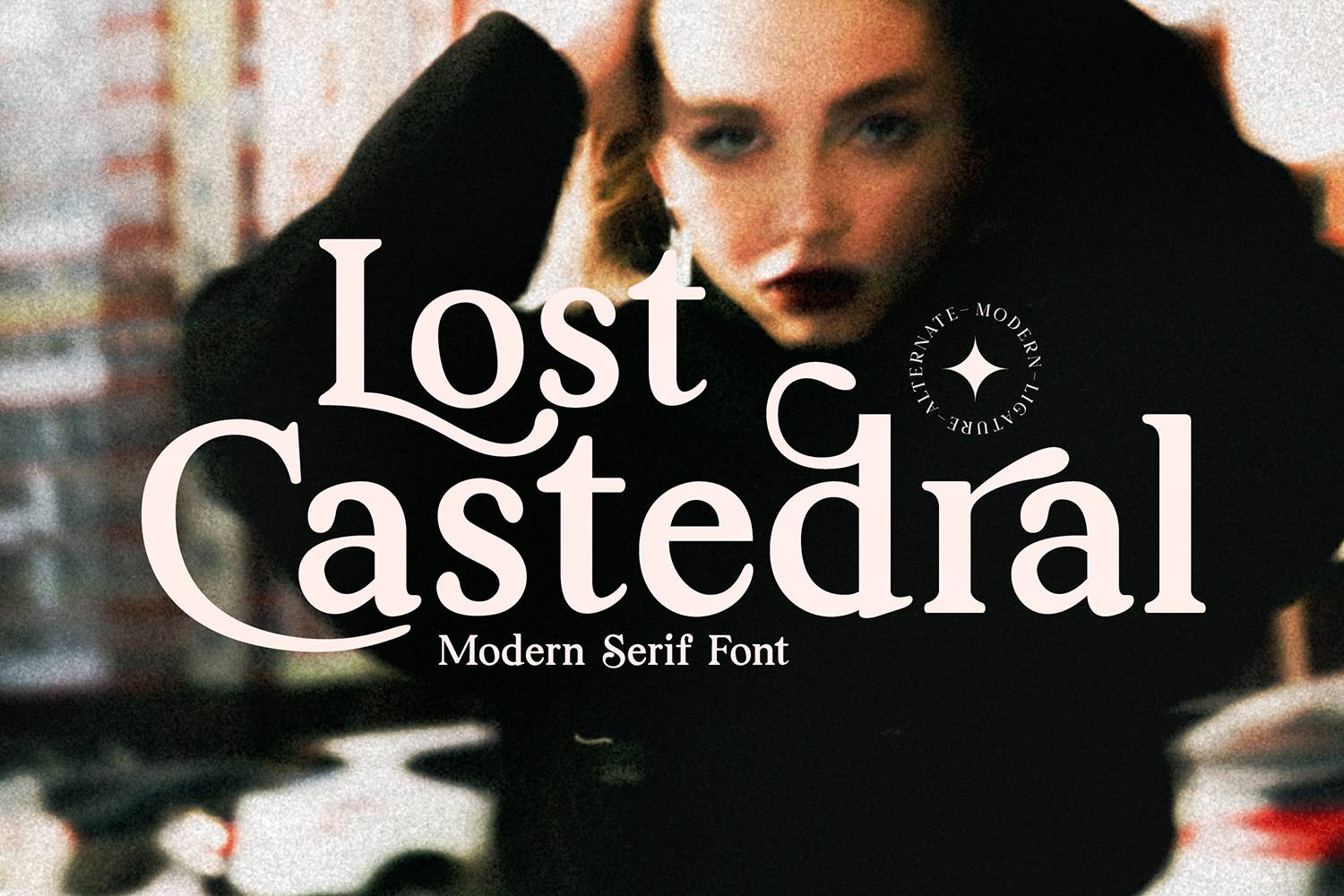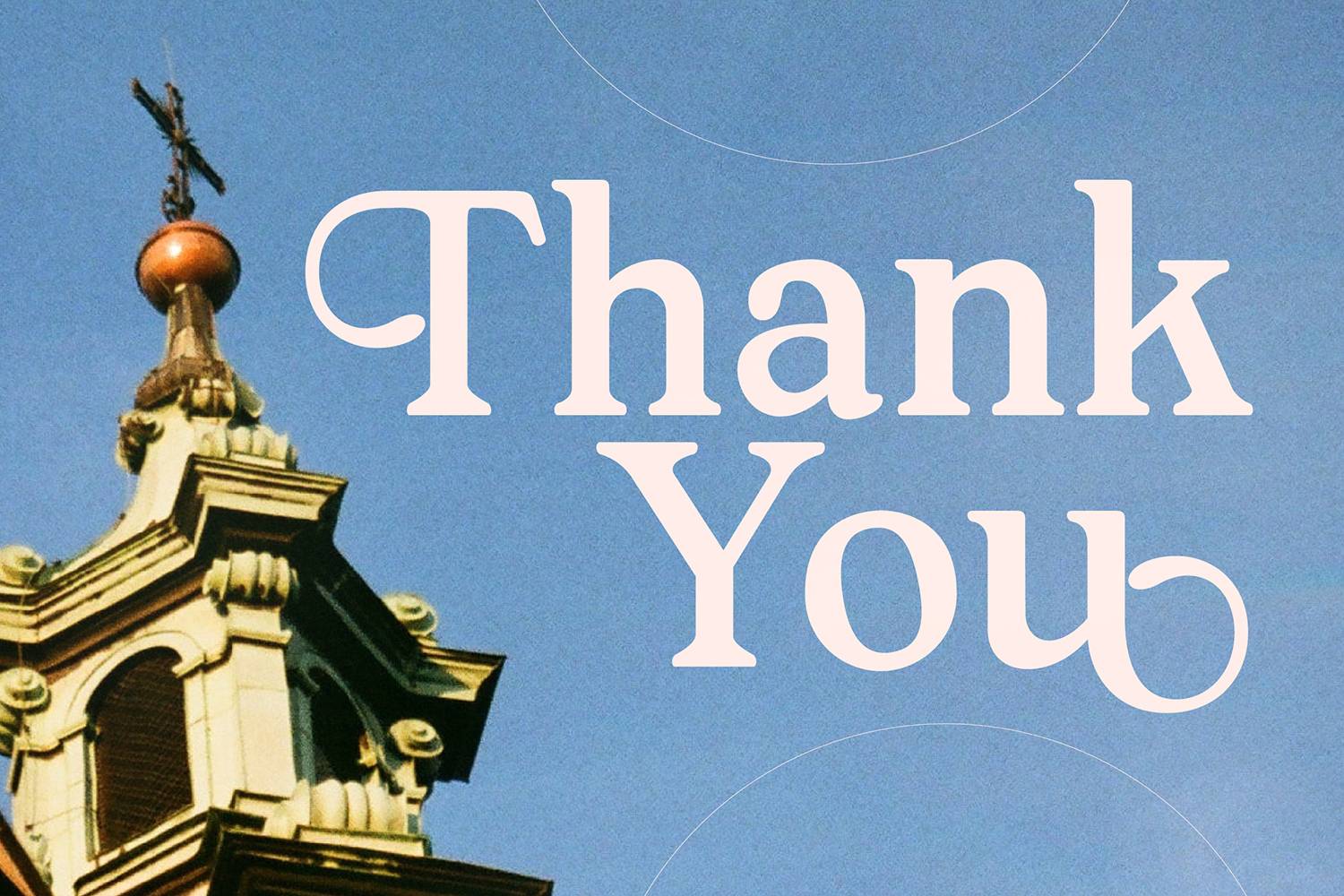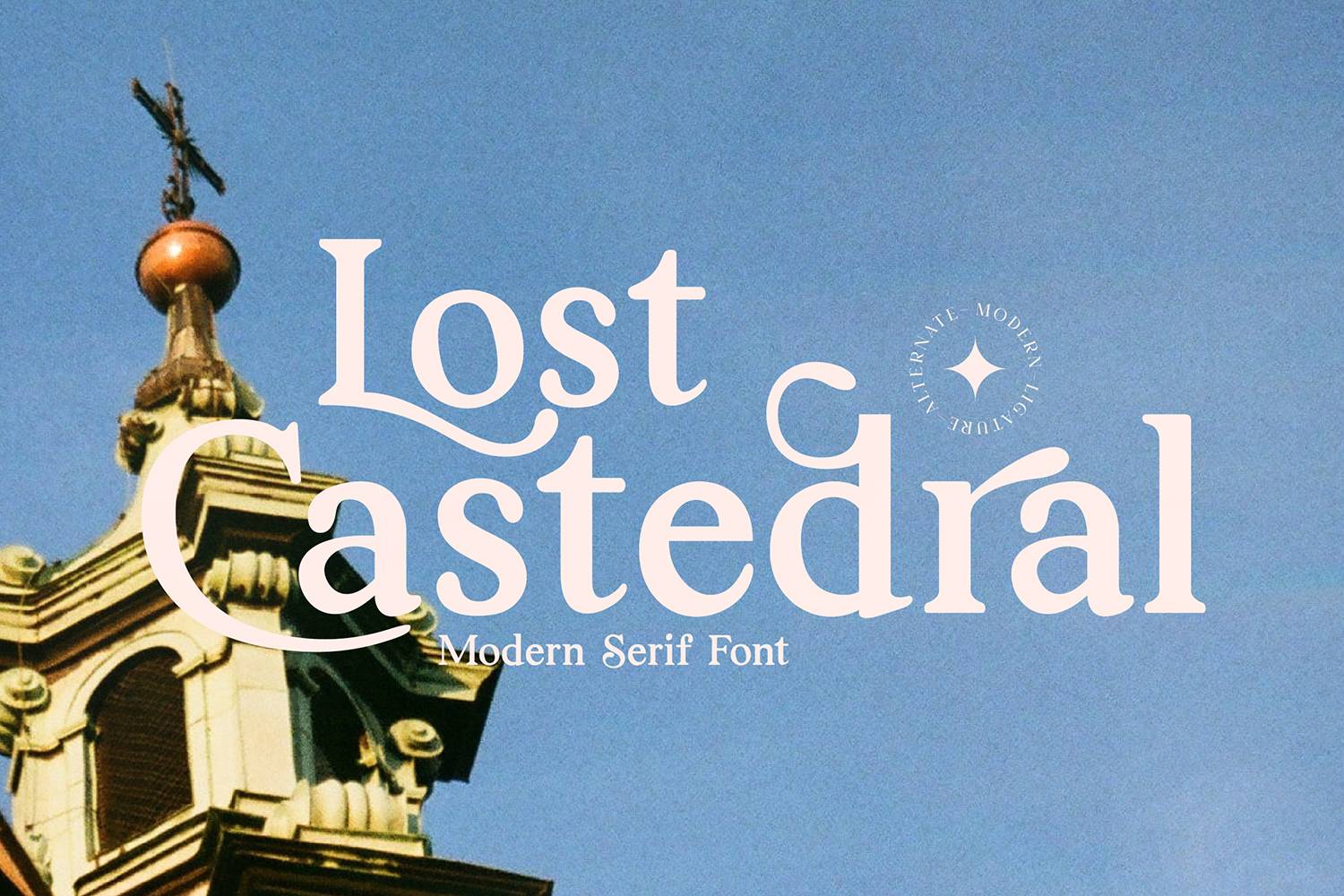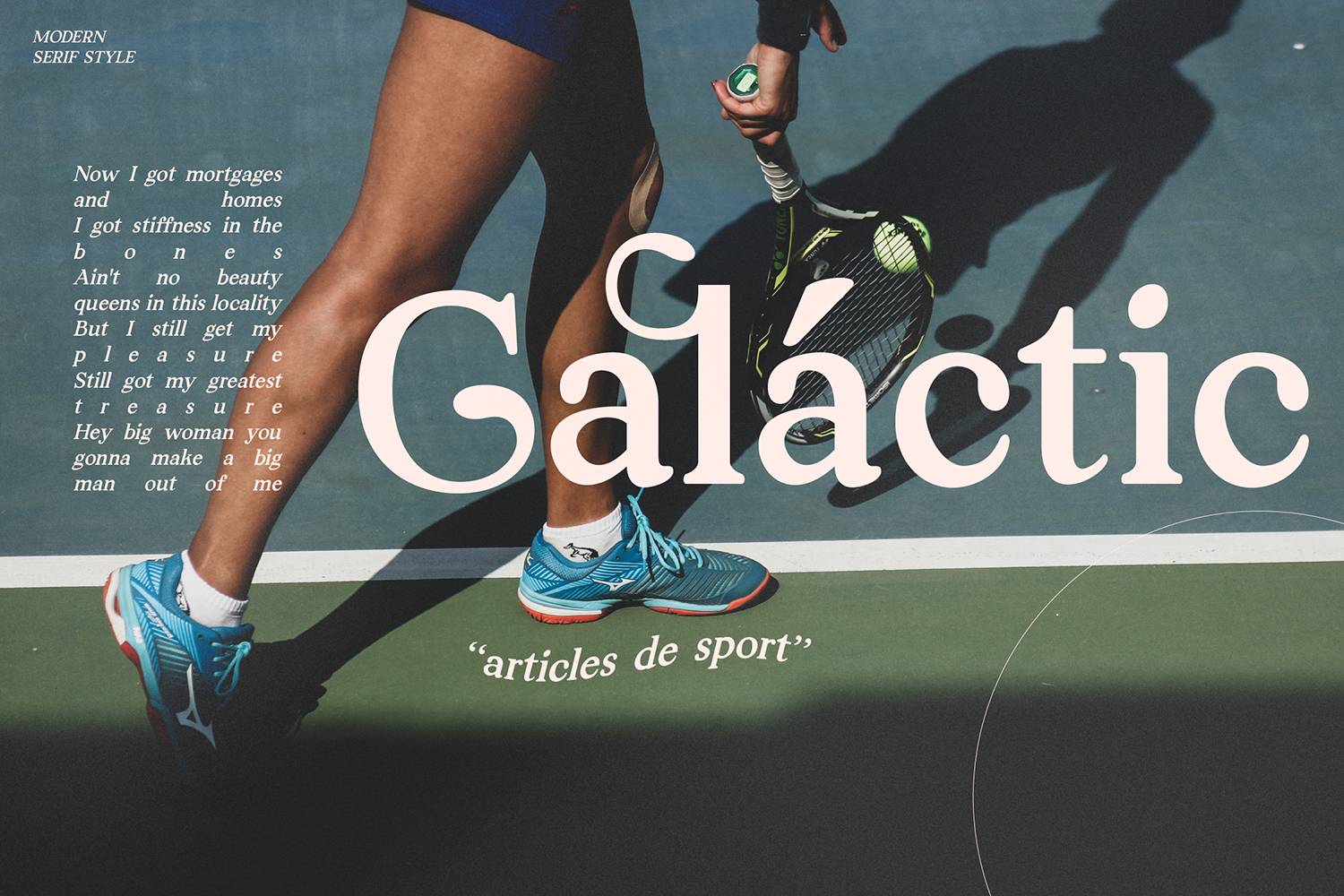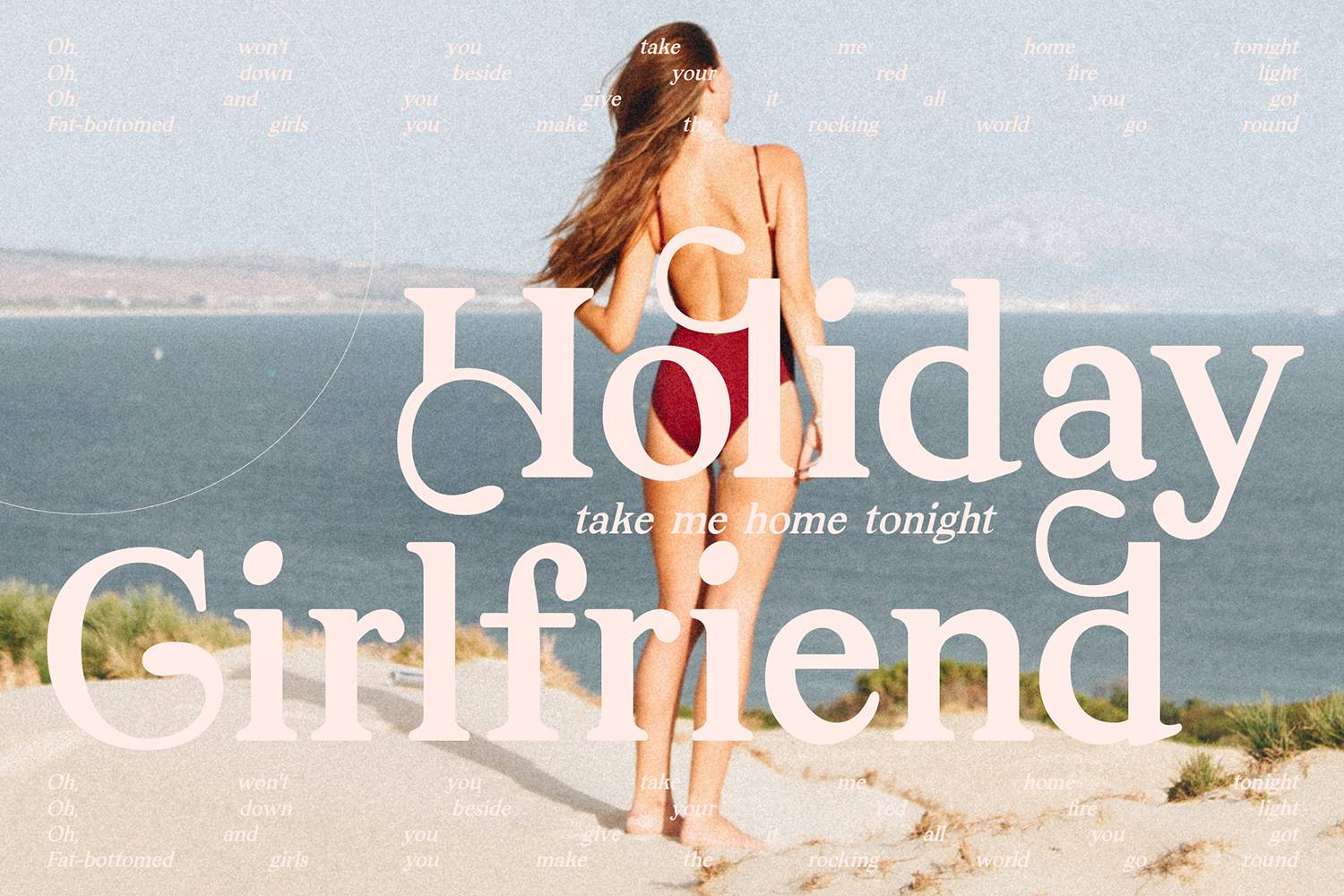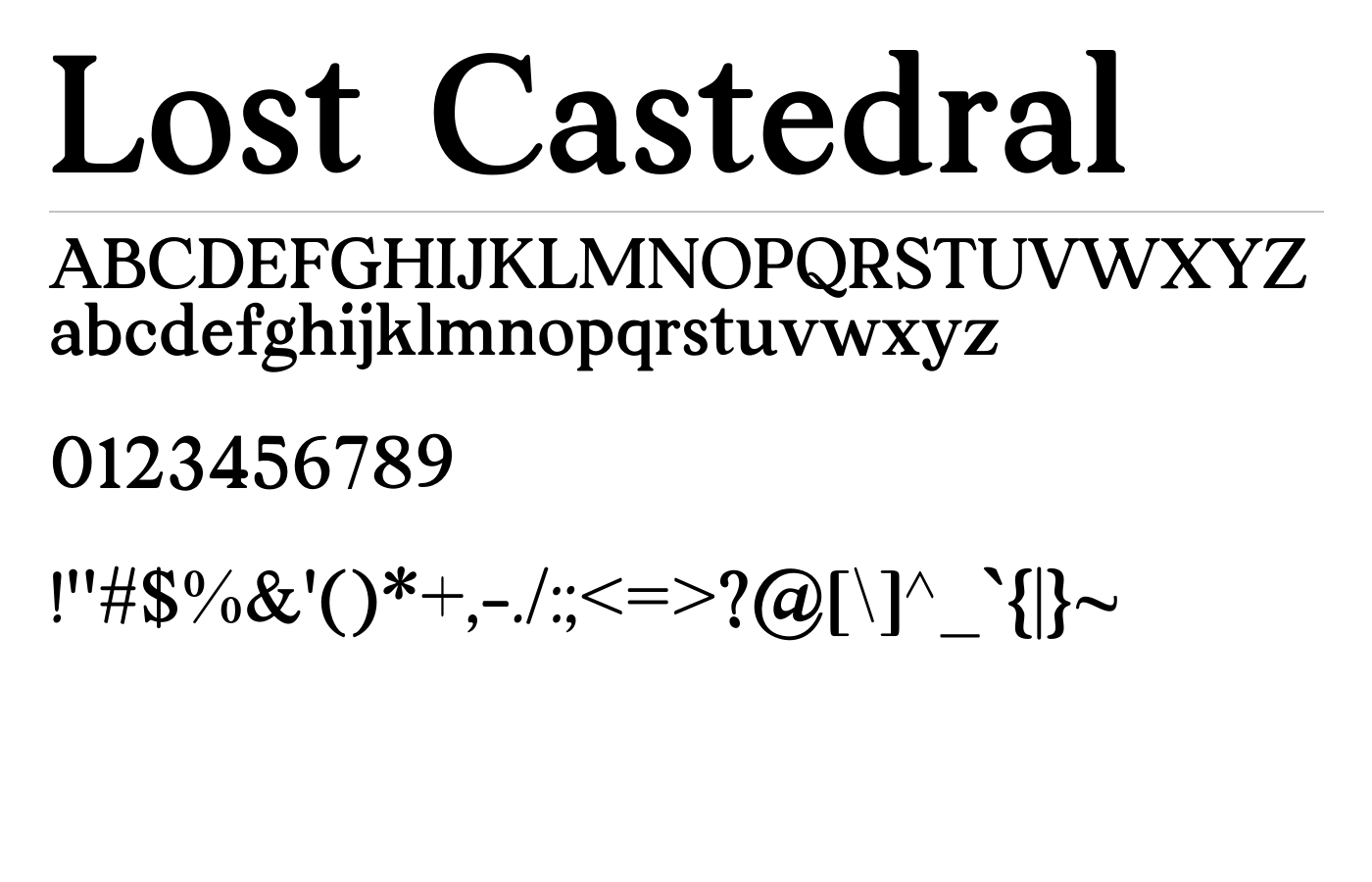
Lost Castedral is a classic serif font with a refined and timeless feel, featuring medium weight strokes and moderate contrast that convey elegance without being overly ornate. Its traditional letterforms and bracketed serifs give it a strong, scholarly character, making it ideal for editorial design, formal branding, and projects that seek a sense of heritage and sophistication. This font works particularly well in headlines and body text where clarity and a touch of classic style are desired.